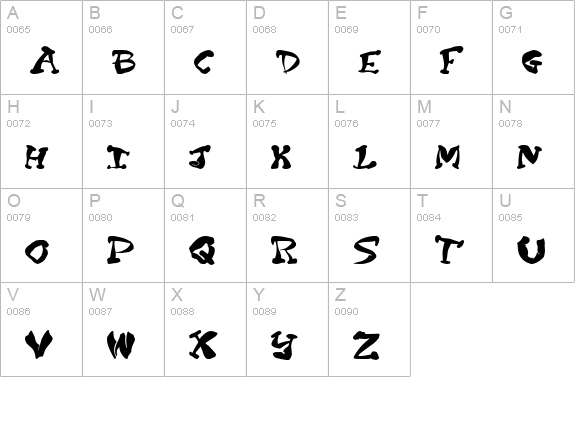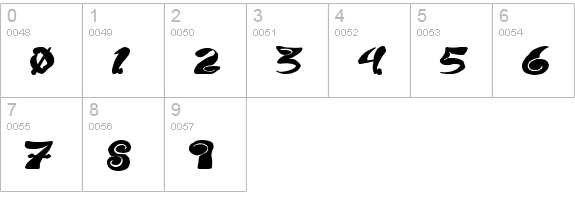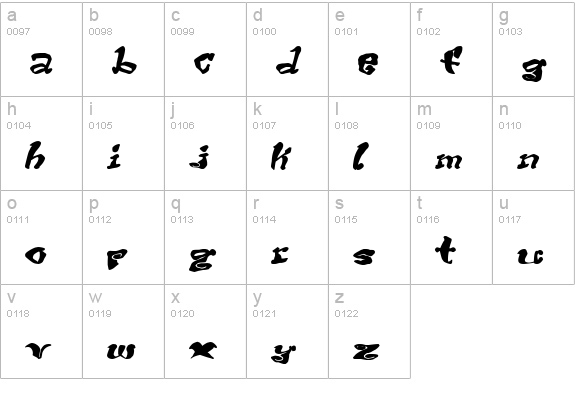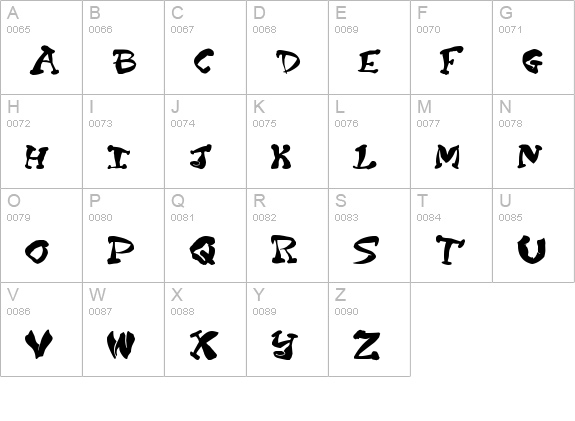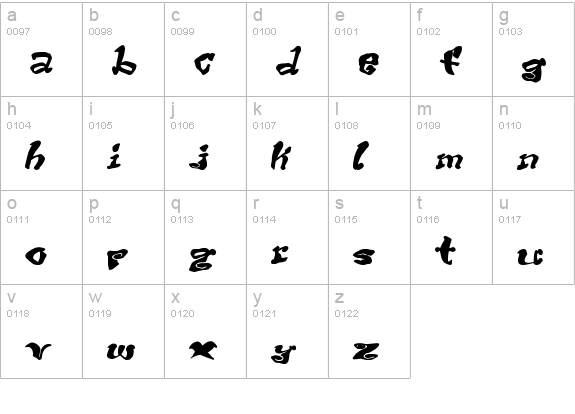
Purple Tentacle PD font is a whimsical and playful typeface that is sure to add a touch of fun to any design project. With its bold and quirky letterforms, this font is perfect for creating eye-catching headlines, posters, and more. The unique style of Purple Tentacle PD font makes it stand out from the crowd and adds a creative flair to any design. Best of all, Purple Tentacle PD font is completely free to download at FontsMarket.com, making it accessible to all designers and creatives looking to add a unique touch to their work. Whether you're working on a branding project, a website design, or any other creative endeavor, Purple Tentacle PD font is sure to help you make a statement and leave a lasting impression. Download it today and unleash your creativity with this fantastic and free font!